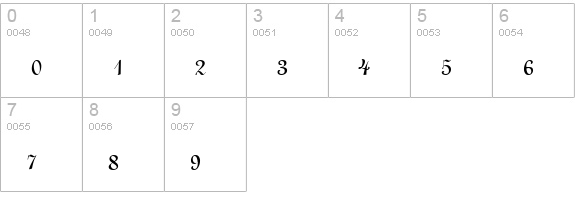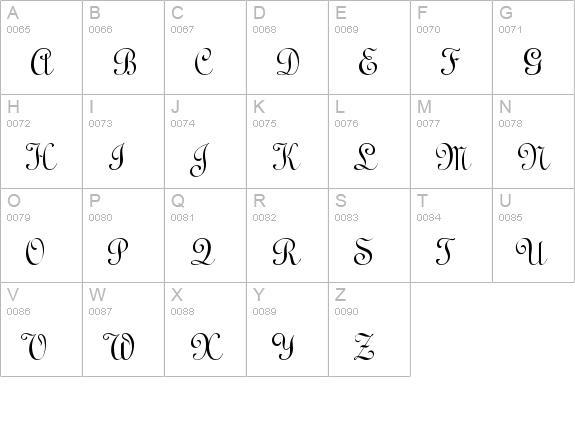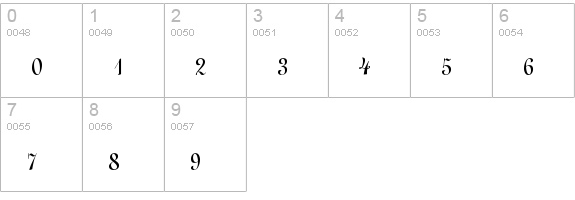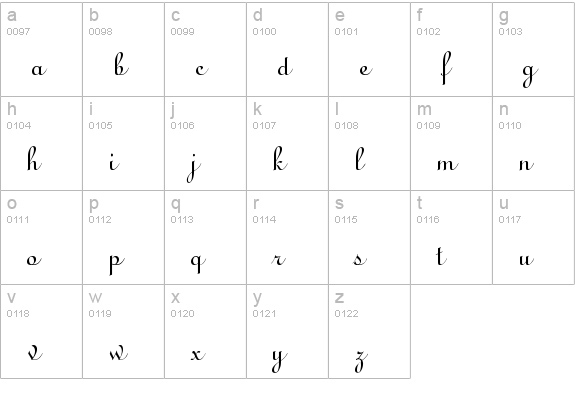
Antigua Font Details
Antigua font is a visually stunning and versatile typeface that combines elegance with modernity. Its unique design features graceful curves and sharp angles, making it perfect for a wide range of design projects. Whether you're creating a sophisticated brand identity, designing a sleek website, or crafting eye-catching marketing materials, Antigua font will elevate your work to the next level. What makes Antigua font even more appealing is that it is free for personal and commercial use. You can easily download this exquisite font at FontsMarket.com without any cost. With its seamless integration into various design applications and its wide range of weights and styles, Antigua font is a must-have in any designer's toolkit. Add a touch of sophistication and style to your projects with Antigua font today.